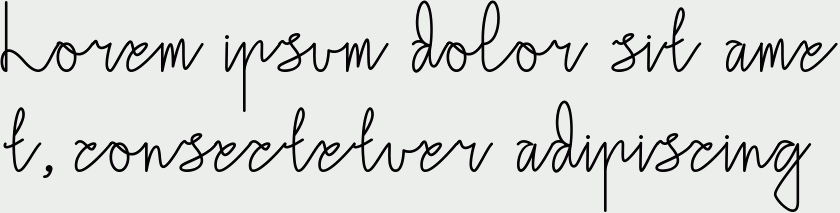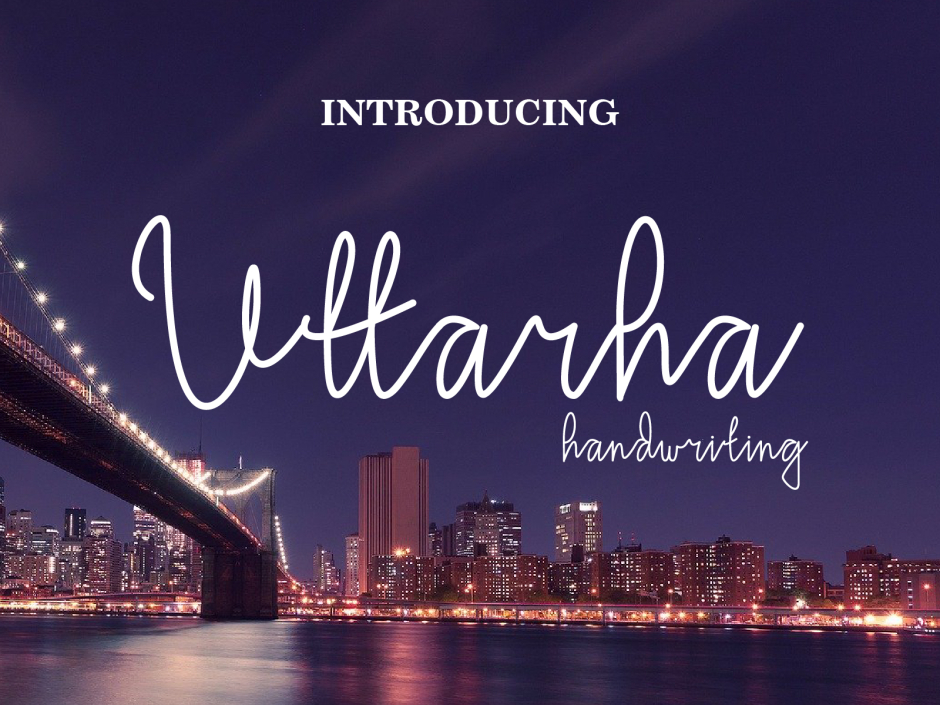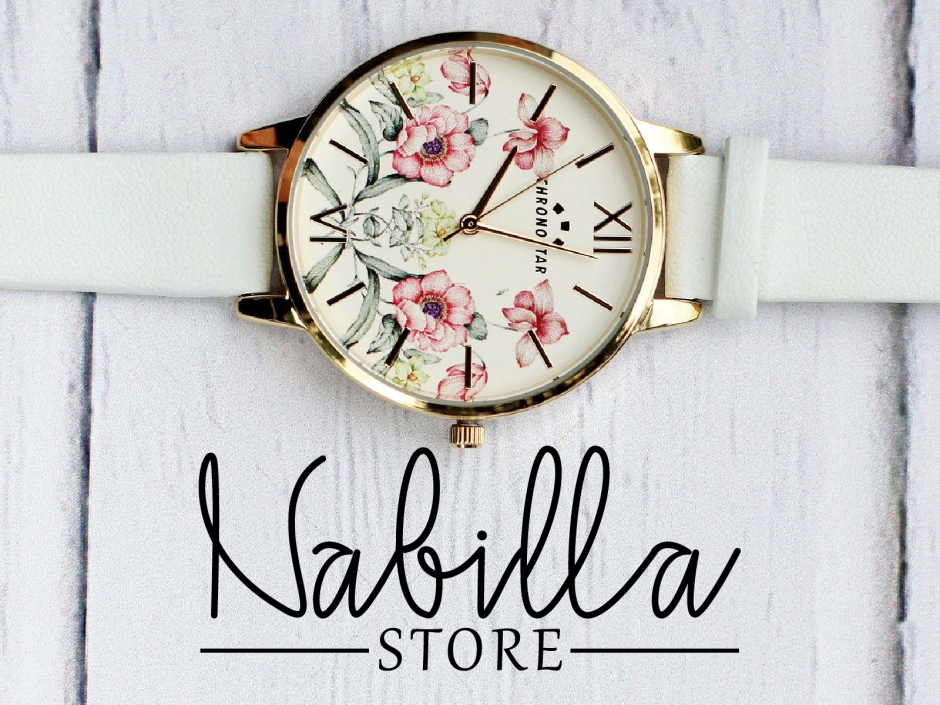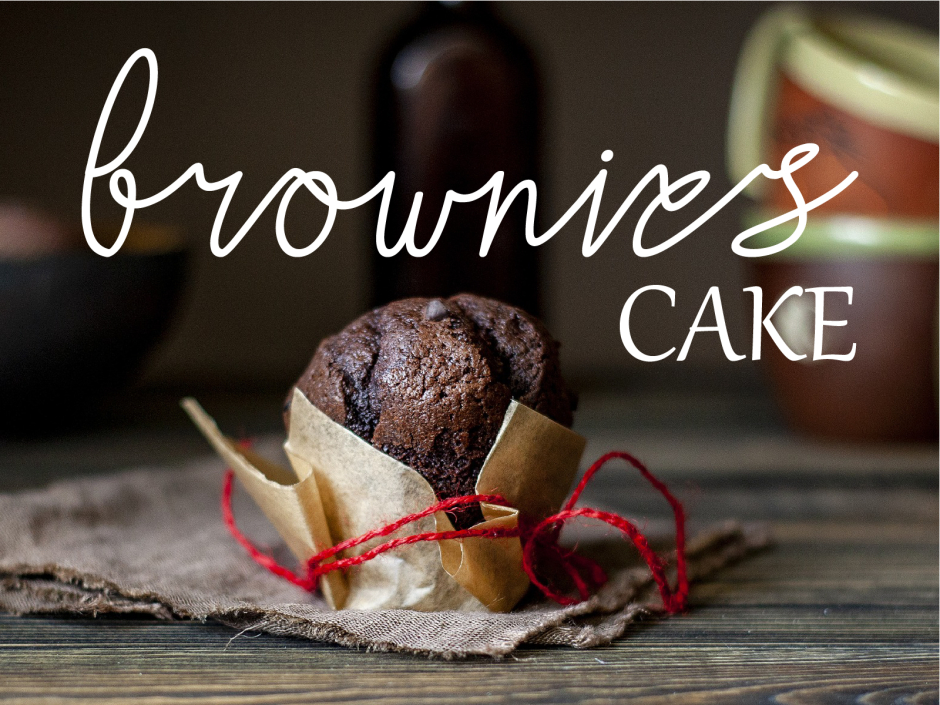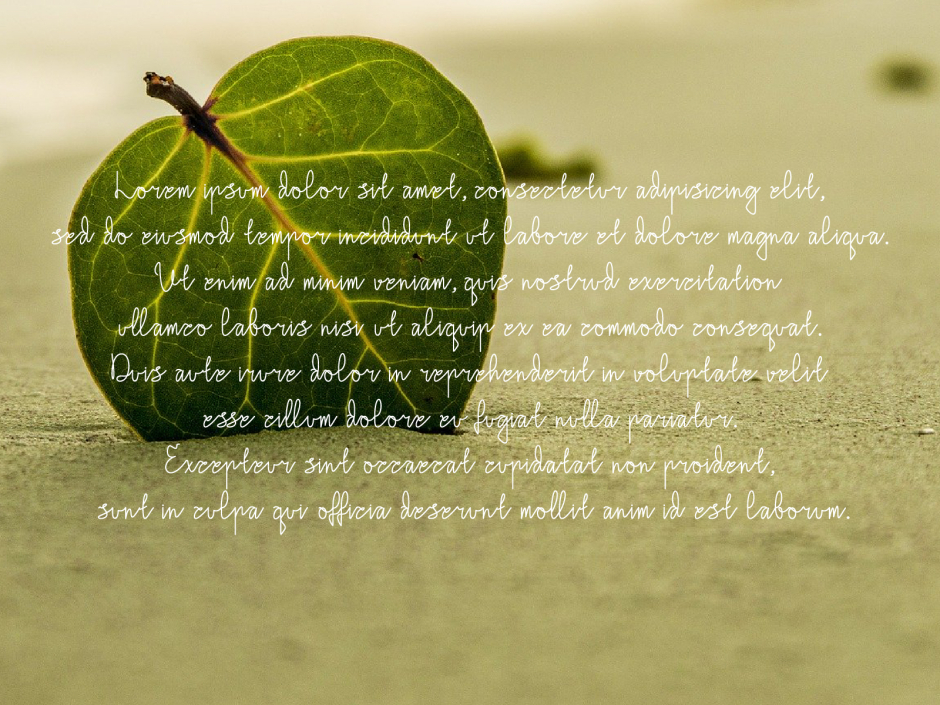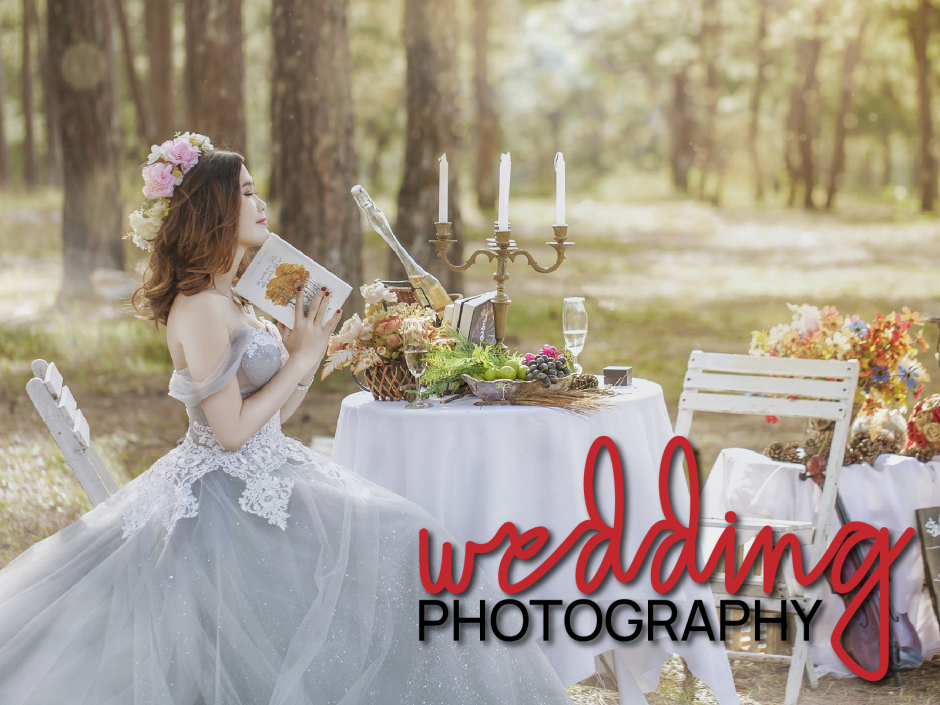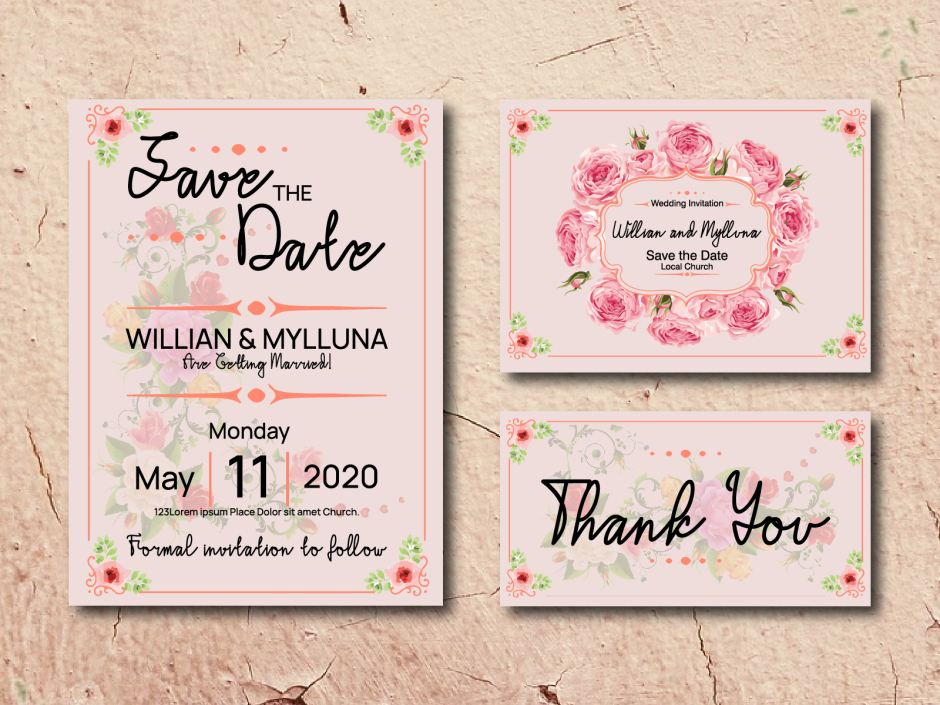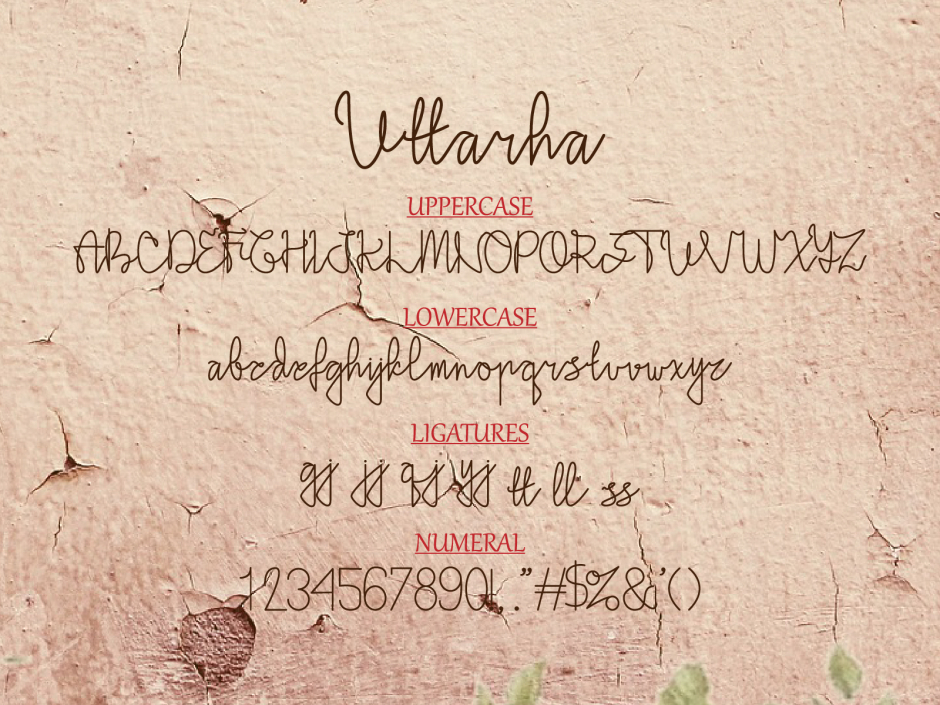
Uttarha Handwriting
Uttarha Handwriting is a cute and casual handwritten font with an incredibly friendly feel. It features gorgeous swashes and ligatures that make this script incredibly versatile.